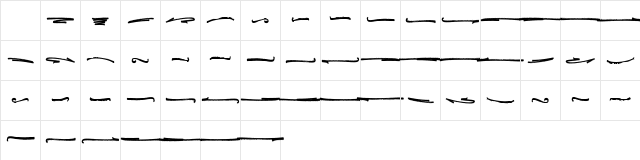
Complete Emilly Stories Swash Regular glyph index. Displaying only characters natively supported by Emilly Stories Swash Regular font.
Emilly Stories Swash flows with the natural rhythm of handwritten lettering, making it ideal for designs that call for warmth and personal expression.
Font Pairing: Combine Emilly Stories Swash with a simple geometric sans for maximum contrast - the tension between flowing curves and clean structure is a classic typographic pairing.
Pro Tip: Use Emilly Stories Swash for short runs of text - names, titles, or taglines. Extended body copy in script faces tires the eye quickly.